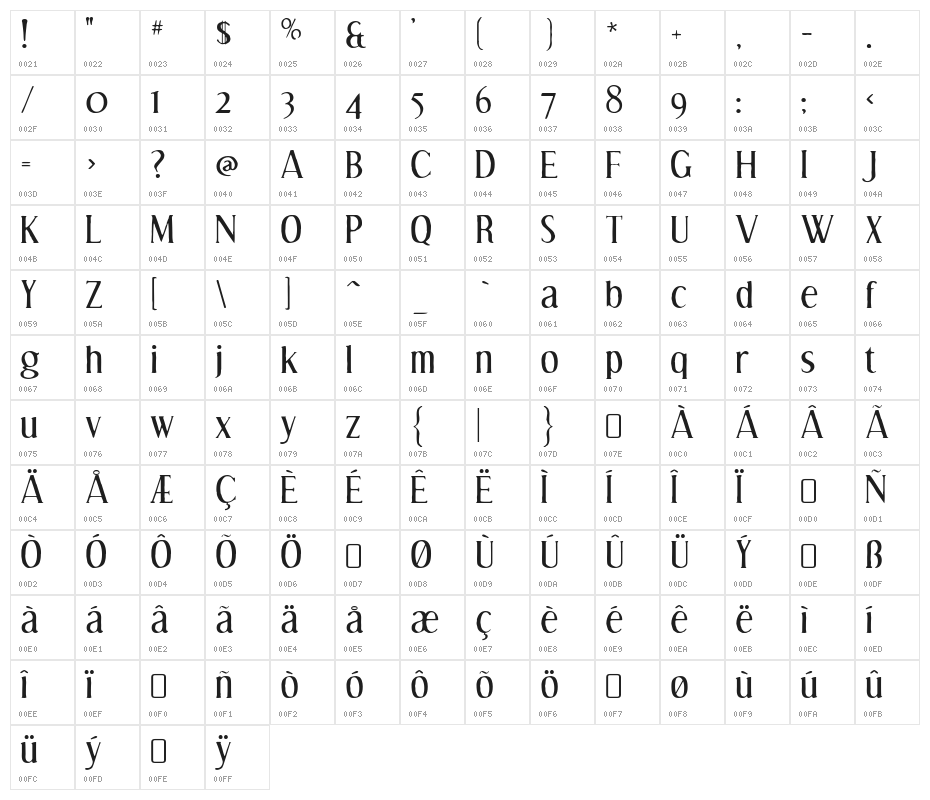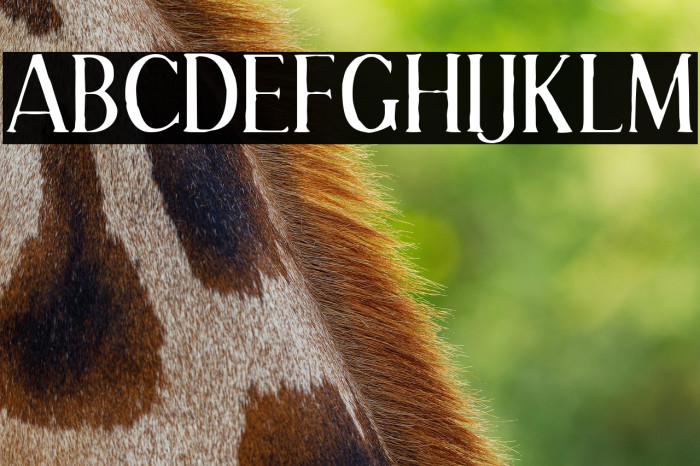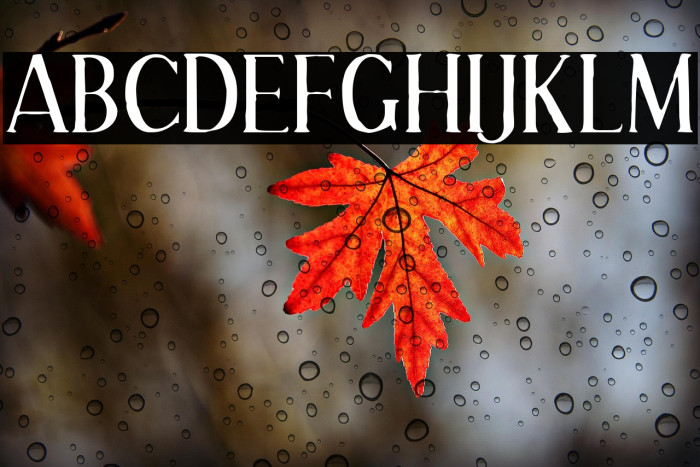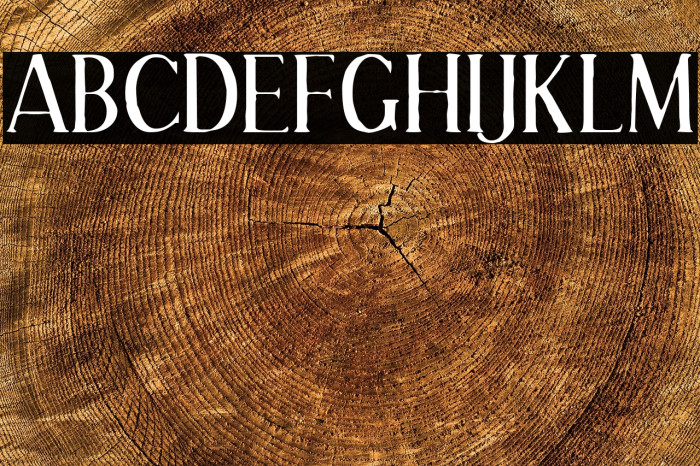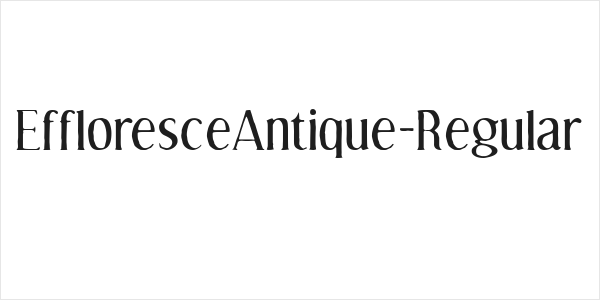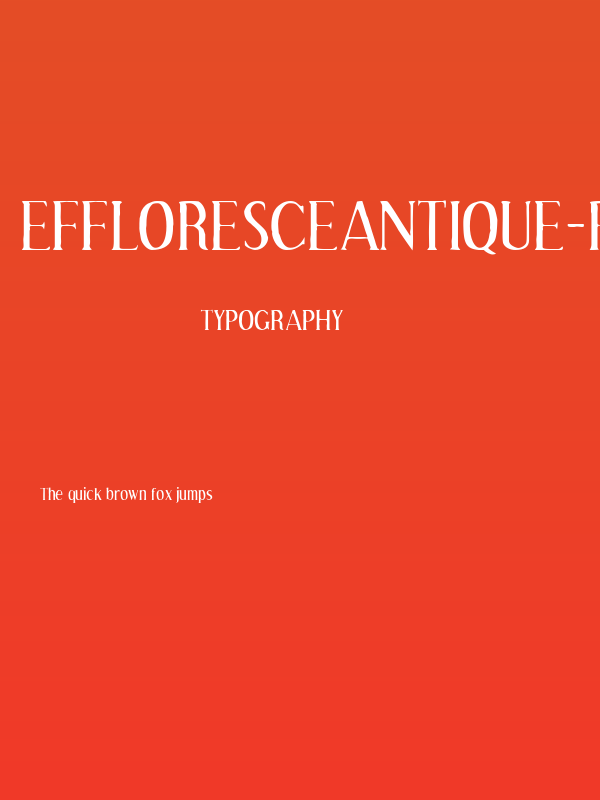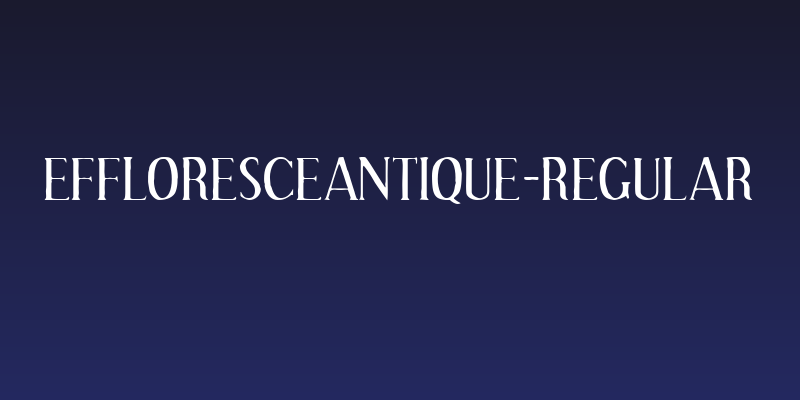
EffloresceAntique-Regular Font
EffloresceAntique-Regular Description
This font exhibits a classic and elegant style with a touch of vintage charm. The uppercase letters are tall and slightly narrow, featuring subtle serifs that add a refined touch. The lowercase letters maintain a consistent flow, with gentle curves and a balanced structure. Numbers are designed with a similar elegance, ensuring readability while maintaining the overall aesthetic. Special characters are crafted with attention to detail, complementing the font's sophisticated appearance. The font's design is suitable for projects that require a timeless and graceful look.
| Proposed Projects | Ideal for wedding invitations, luxury branding, editorial design, and classic book covers. |